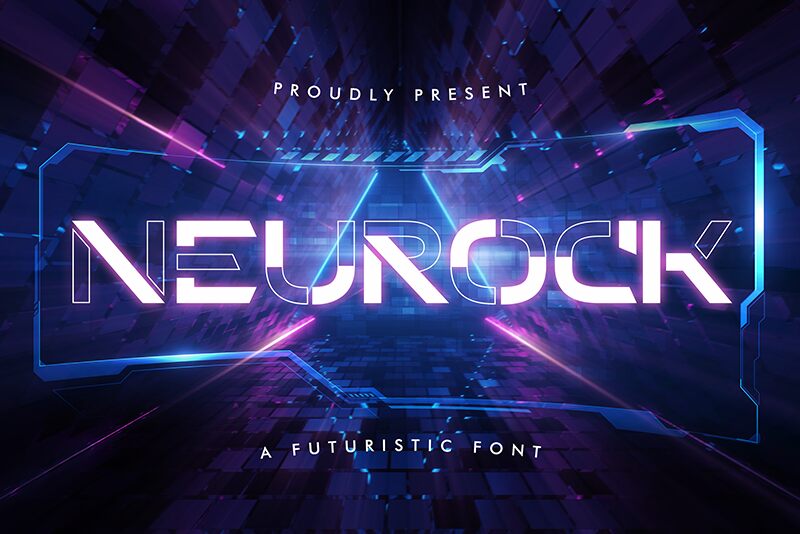
Neurock
Introducing Neurock, the bold and wide display font designed by Almarkhatype in 2021. Its futuristic style is perfect for projects that require a modern and cutting-edge look, such as tech startups, gaming companies, or sci-fi movies. With its sleek curves and strong lines, Neurock commands attention and makes a statement. Whether you're designing a logo or creating marketing materials, this font is sure to leave an impression. So why settle for boring fonts when you can elevate your design with Neurock? Try it out today and see the difference it can make!